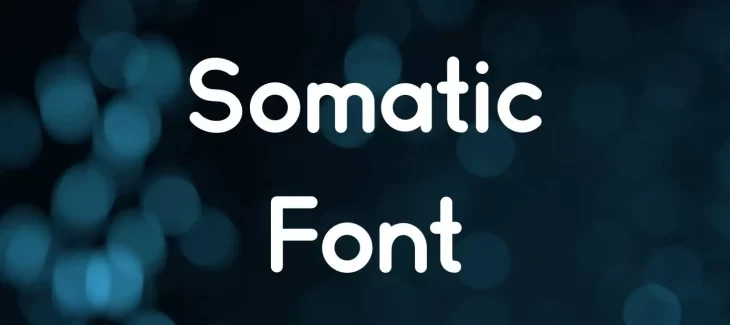
Somatic Font is a humanist sans-serif typeface created by Type Associates in 1993. The typeface was designed by Terry Ritchie, who also designed the popular Akzidenz-Grotesk typeface.
This Font is characterized by its tall x-height, wide proportions, and open counters. These features make it highly legible, even in small sizes. The typeface also includes a unique set of alternate characters, which gives it a stylish and contemporary look.
It is particularly popular among designers working in the fields of fashion and retail due to its modern aesthetic. Despite its widespread popularity, Somatic Font has received some criticism from type connoisseurs who argue that it lacks the visual interest of more traditional humanist sans-serif.
Who Used Somatic Font?
Somatic Font has been used extensively in both print and digital media. It is particularly popular for use in headlines and body copy. The typeface is also very popular for use in web design.
This Font is available in both regular and bold weights. It is also available in italic, which gives it a more playful and stylish look. The typeface is also available in small caps, which makes it ideal for use in headings and titles.
Somatic Font is a versatile typeface that can be used for virtually any design project. Whether you are creating print or digital materials, it is sure to be a great choice that will help your designs stand out. This is not a google font but it has a matching personality with other typefaces and can provide cool performance with the pairing of quartz font that can give an excellent appearance to your designs.
Somatic Font Family Appearance
| Name | Somatic Font |
| Designer | Type Associates |
| Style | Sans Serif |
Is Somatic good for body text?
This Font is an excellent choice for body text. Its tall x-height and wide proportions make it highly legible, even at small sizes.
Is Somatic good for titles?
Somatic typeface is a great choice for titles. Its bold weight and stylish italic make it ideal for use in headings and titles.
Is Somatic good for web design?
This Font is an excellent choice for web design. It is highly legible, even in small sizes, and its bold weight makes it stand out on screen.
Is Somatic font legible?
Yes, Somatic typeface is highly legible, even in small sizes. This makes it an excellent choice for body text and web design.